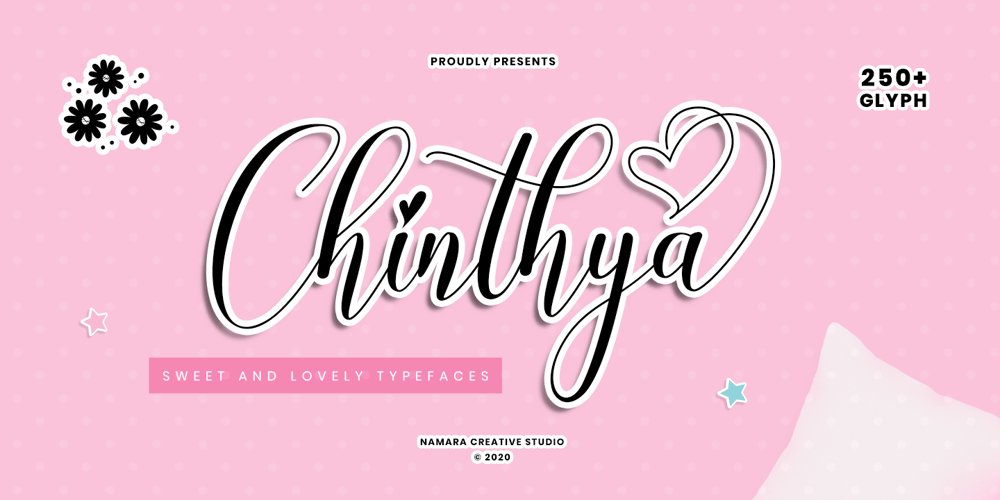
Chinthya Font Family was designed by Eep Apringga and published by Namara Creative Studio. Chinthya contains 1 styles and family package options. Chinthya is sweet and lovely calligraphy fonts in cute and beautiful elegant styles. decorative characters and handlettering effect make this font looks so naturally. Included OpenType features : alternates, ligatures and multilingual support. perfect for many designs, from wedding invation, greeting card, social media quotes, branding, logo, and many more.